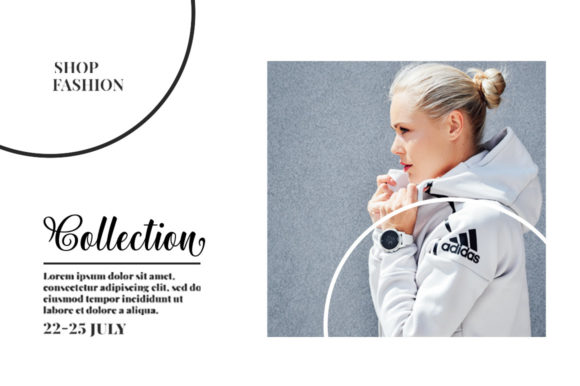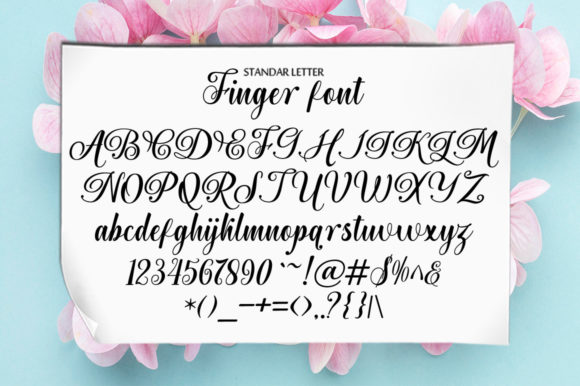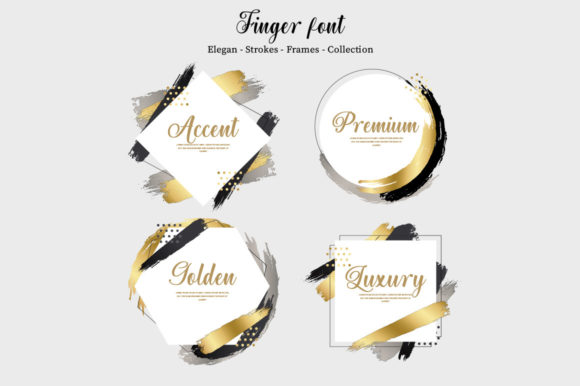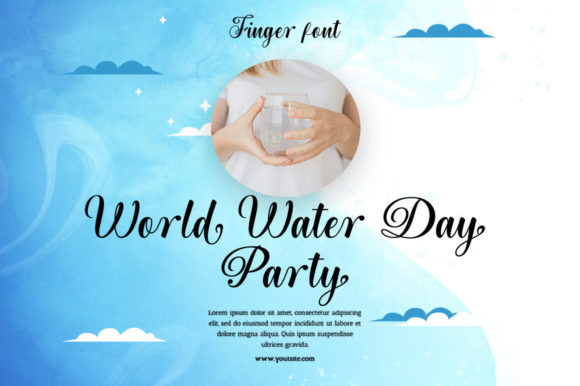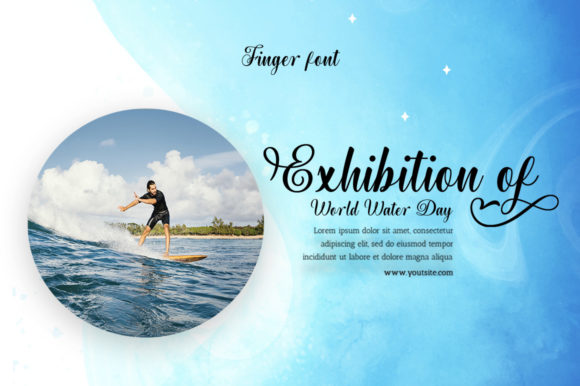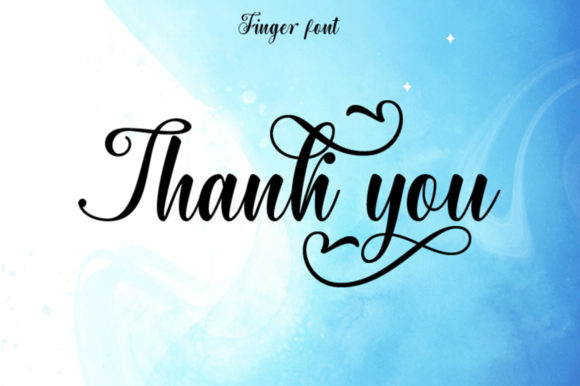
Finger Font: Elevate Your Designs with Elegance and Sophistication
In the world of typography, fonts play a crucial role in conveying the tone and personality of a design. For designers and crafters seeking to add a touch of elegance and sophistication to their work, the Finger Font is an excellent choice. This beautiful and modern script font is designed to make your designs stand out with its unique starting and ending strokes, bringing a level of refinement and aesthetic appeal that’s hard to match.
What Makes Finger Font Special?
Finger Font is not just another script font; it’s a carefully crafted typeface that offers a range of features making it ideal for various design projects. Here are some of the key characteristics that set Finger Font apart:
• Beautiful and Modern Design: Finger Font boasts a contemporary design with flowing lines and elegant strokes, making it perfect for projects that require a modern yet sophisticated look.
• Starting and Ending Strokes: The font’s unique starting and ending strokes add a touch of personality to your text, making it more visually appealing and engaging.
• PUA Encoded: Finger Font is PUA (Private Use Area) encoded, which means you can easily access all the glyphs and swashes. This feature is particularly useful for designers who want to experiment with different styles and variations without the hassle of complicated font management.
Elegance and Aesthetic Appeal
The primary goal of Finger Font is to bring an air of elegance and aesthetic appeal to your designs. Whether you’re working on a branding project, a wedding invitation, a packaging design, or a digital platform, this font can help you achieve a high-end look that’s sure to impress. The elegant strokes and sophisticated style of Finger Font make it versatile enough to be used in a variety of contexts, from luxury brands to creative crafts.
Versatility for Designers and Crafters
Finger Font’s versatility is one of its strongest assets. Designers can use it to create stunning visual content for their clients, while crafters can use it to add a professional touch to their handmade products. Here are some ways you can use Finger Font:
• Branding and Logos: Use Finger Font to create elegant logos and brand identities that convey sophistication and luxury.
• Wedding and Event Invitations: Add a touch of class to your wedding invitations, party invites, and other event materials with this beautiful script font.
• Packaging Design: Elevate your product packaging with Finger Font, making your products stand out on store shelves.
• Digital Content: Use Finger Font in your digital content, such as blog headers, social media graphics, and website designs, to give your online presence a professional and stylish look.
Why Choose Finger Font?
• Unique Style: Finger Font offers a unique style that can help your designs stand out in a crowded market.
• Ease of Use: Being PUA encoded, Finger Font is easy to use, even for those who are new to font management.
• Elegance: The font’s elegant design makes it suitable for projects that require a sophisticated look.
• Versatility: Finger Font can be used across various design projects, making it a valuable addition to your font library.
Finger Font is a beautiful and modern script font that can add a touch of elegance and sophistication to your designs. With its unique starting and ending strokes, PUA encoding, and versatile style, it’s an excellent choice for designers and crafters looking to elevate their work. Whether you’re creating branding materials, event invitations, packaging designs, or digital content, Finger Font can help you achieve a high-end look that’s sure to impress. So, why wait? Explore the possibilities with Finger Font today and take your designs to the next level!